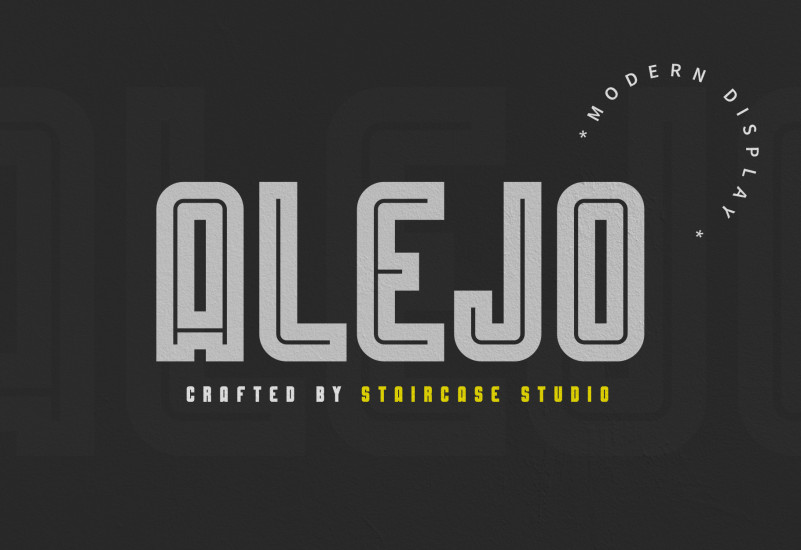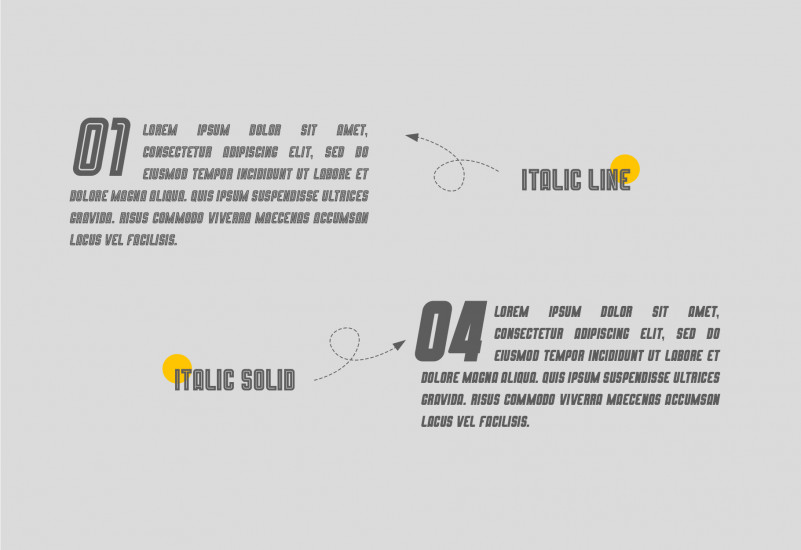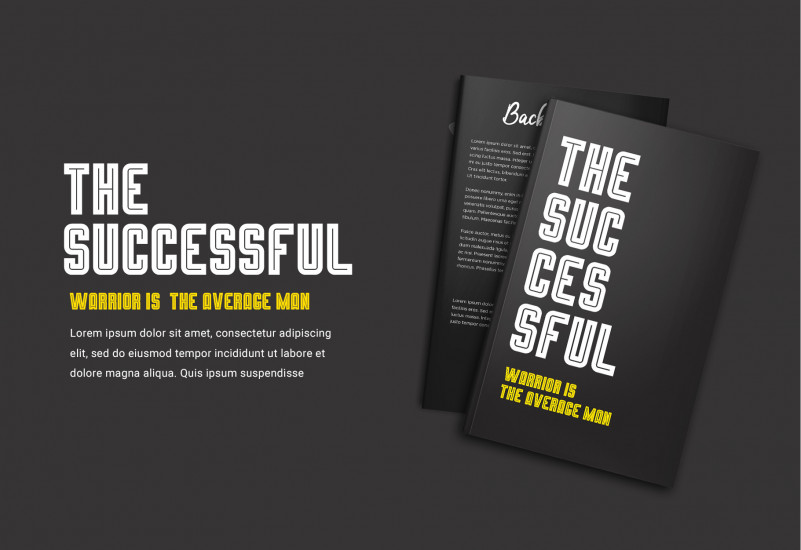
Alejo Display Font
Alejo font with sans serif styles. A collection of letters and numbers suitable your projects also great for Logotype, Branding Design, Logo Design, Digital Lettering Arts, T-Shirt/Apparel, Poster, Magazine, Signs, Advertising Design, and any design needs.